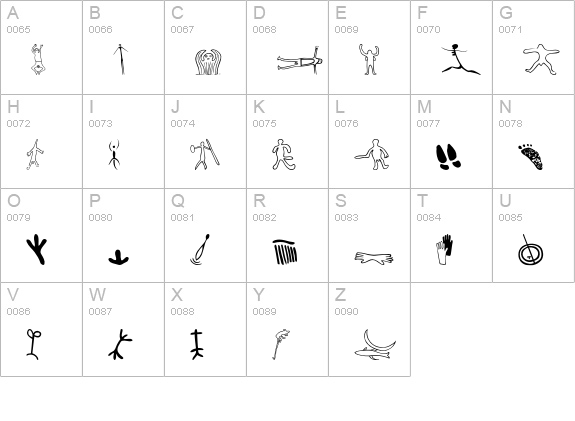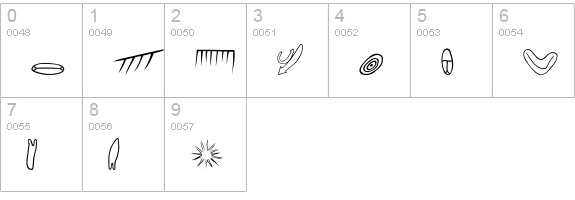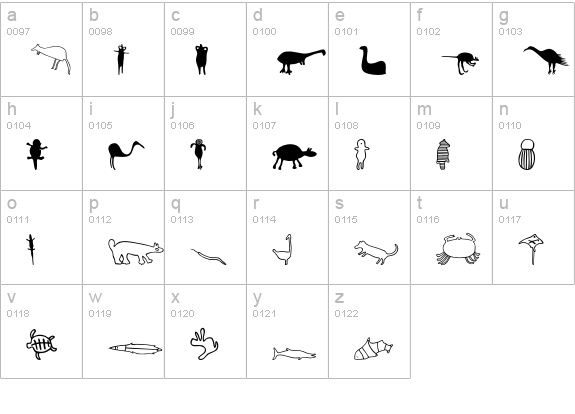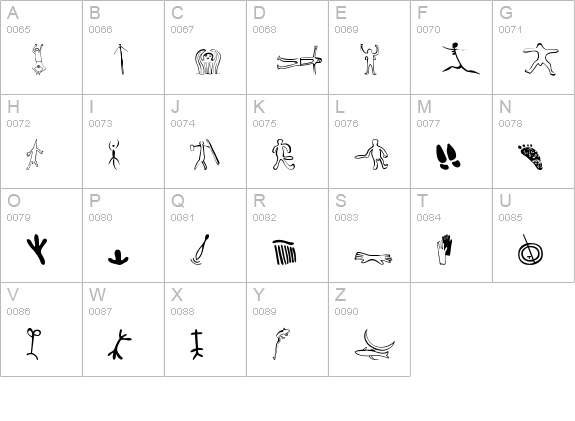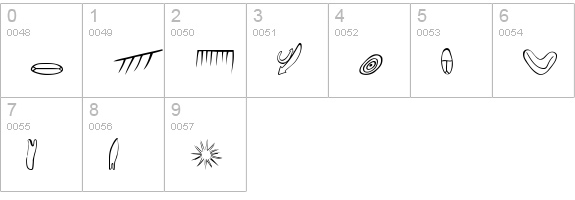
P22Petroglyphs-Australian Font Details
P22Petroglyphs-Australian font is a stunning and captivating typeface that brings the ancient art of cave paintings to life. Inspired by the rich cultural heritage of the Australian Aboriginal people, this unique font is a visual representation of their spiritual connection to the land and their storytelling traditions. With its intricate and beautifully crafted glyphs, P22Petroglyphs-Australian font captures the essence of the ancient petroglyphs found in the rock formations across Australia. Each letter and symbol is meticulously designed to reflect the intricate patterns and symbols that have been used by the Aboriginal people for thousands of years. The beauty of P22Petroglyphs-Australian font lies not only in its aesthetic appeal but also in its versatility. Whether you are creating a logo, designing a poster, or adding a touch of authenticity to your digital artwork, this font is sure to make a powerful and unforgettable statement. One of the best things about P22Petroglyphs-Australian font is that it is free. Yes, you read that right - this incredible font is freely available to download at FontsMarket.com. Now, you can effortlessly incorporate the richness of Aboriginal culture into your designs without any cost. So, go ahead and explore the wonders of P22Petroglyphs-Australian font. Let its ancient spirit guide your creative journey and transport your audience to a world steeped in history and tradition. Download it today and embark on a visual adventure like no other.